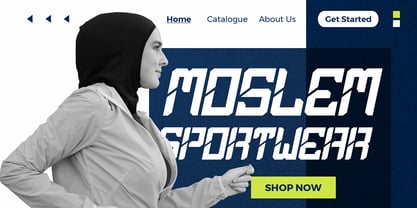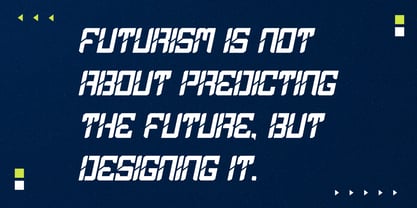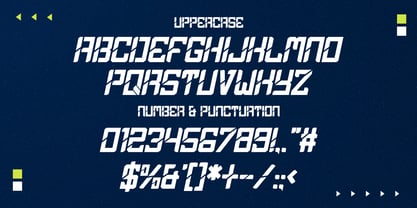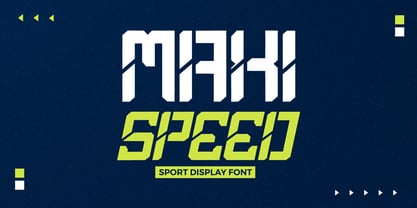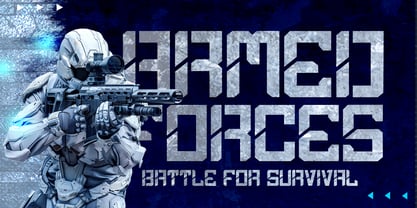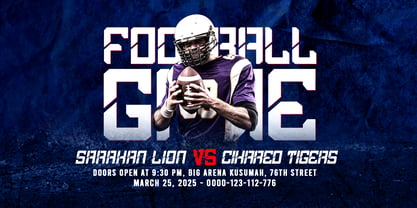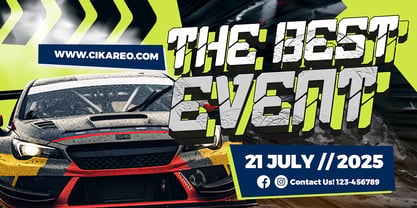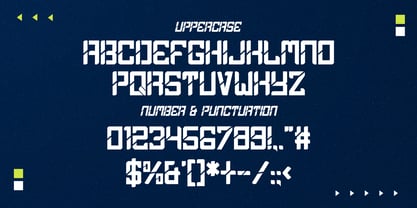
Maxispeed
Die Schriftfamilie Maxispeed wurde von Sipanji entworfen und von Sipanji21 veröffentlicht. Maxispeed enthält 2 Stile und Familienpaketoptionen. Mehr über diese Familie
Maxispeed is a sport futuristic display font with a bold and sharp character. Designed with clean, straight lines, this font embodies speed, power, and modern aesthetics. It comes in two styles, regular and italic, making it perfect for sports branding, racing themes, tech-inspired designs, esports logos, and dynamic typography projects. Maxispeed delivers a strong and professional look, ideal for creating high-impact visuals that stand out.